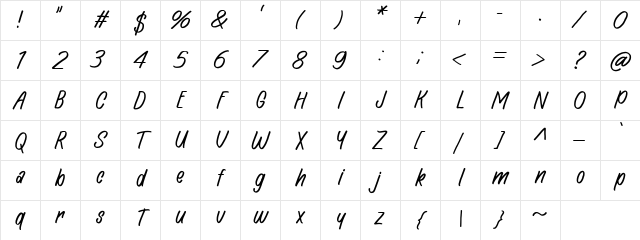
Hingar Bingar Handdrawan Free Font
Hingar Bingar Handdrawan
Style: Handdrawan
Foundry: Stefie Justprince
Designer: Stefie Justprince
Design Context for Hingar Bingar
Hingar Bingar flows with the natural rhythm of handwritten lettering, making it ideal for designs that call for warmth and personal expression.
Font Pairing: Combine Hingar Bingar with a simple geometric sans for maximum contrast - the tension between flowing curves and clean structure is a classic typographic pairing.
Pro Tip: Use Hingar Bingar for short runs of text - names, titles, or taglines. Extended body copy in script faces tires the eye quickly.